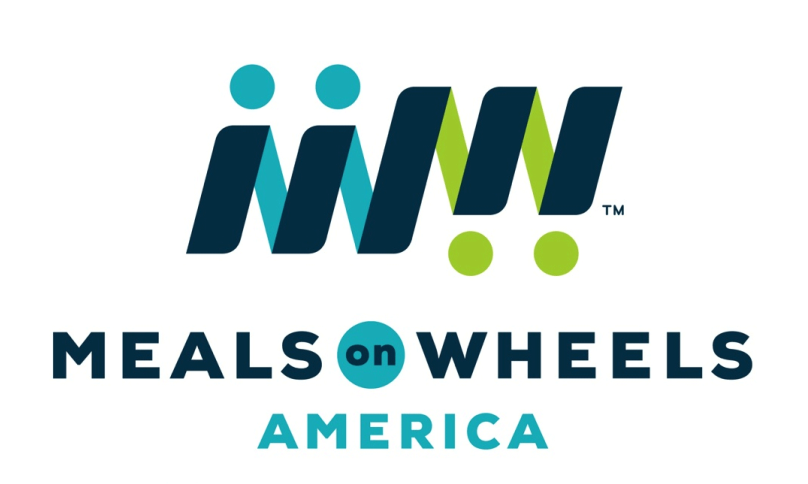
Meals on Wheels Font
Fonts in UseThe Meals On Wheels Association of America is a non-profit organization that delivers nutritious meals to seniors and other vulnerable individuals who are unable to prepare meals for themselves. The program aims to reduce hunger, improve health, and promote socialization among its recipients.
Meals on Wheels changed its name to Meals on Wheels America and got a new logo in 2015, created by Duffy & Partners. The new logo combines the initials M and W with wheels that move forward and features a sans-serif wordmark in a font similar to Nexa Black. Designed by Bulgarian graphic designer Svetoslav Simov and published through Fontfabric